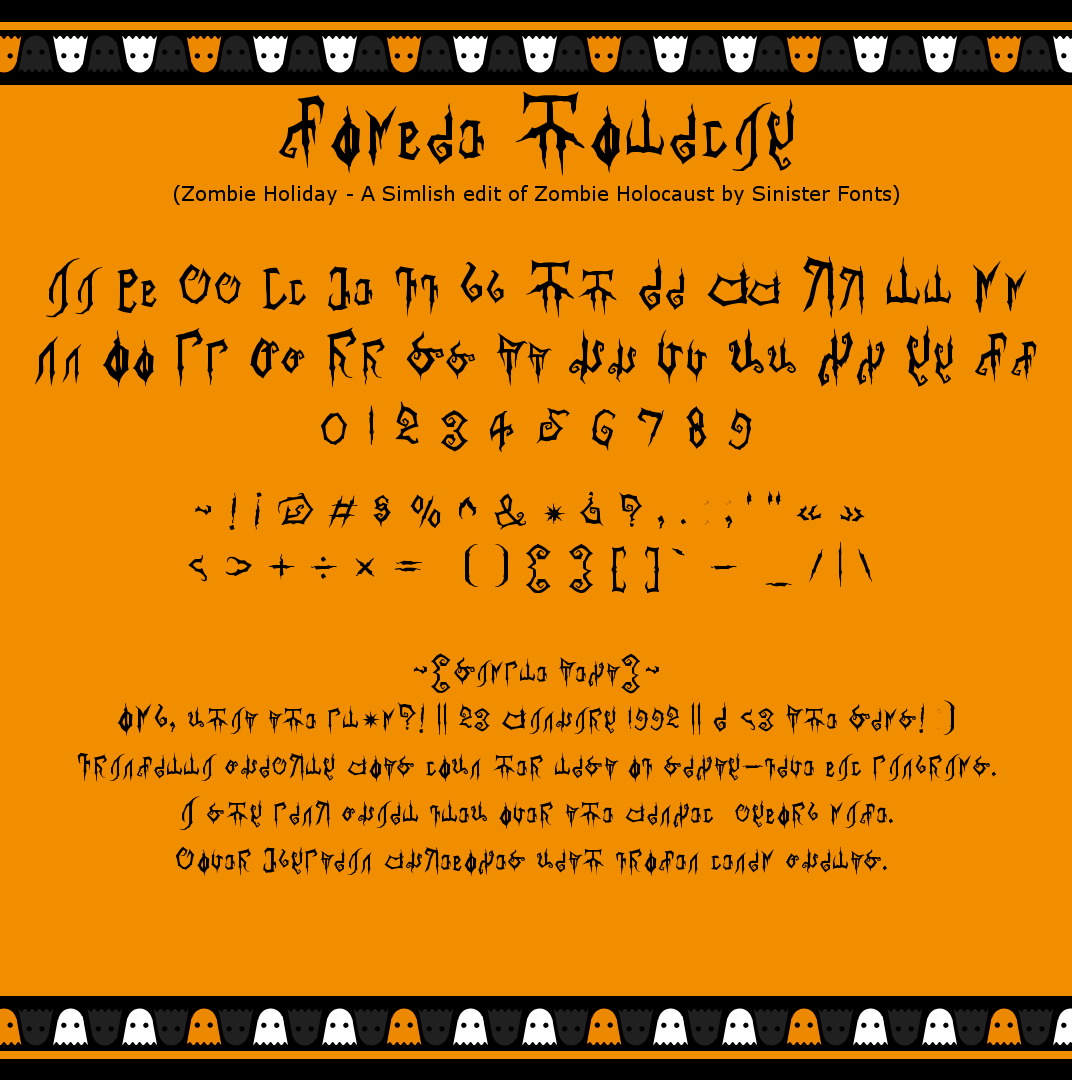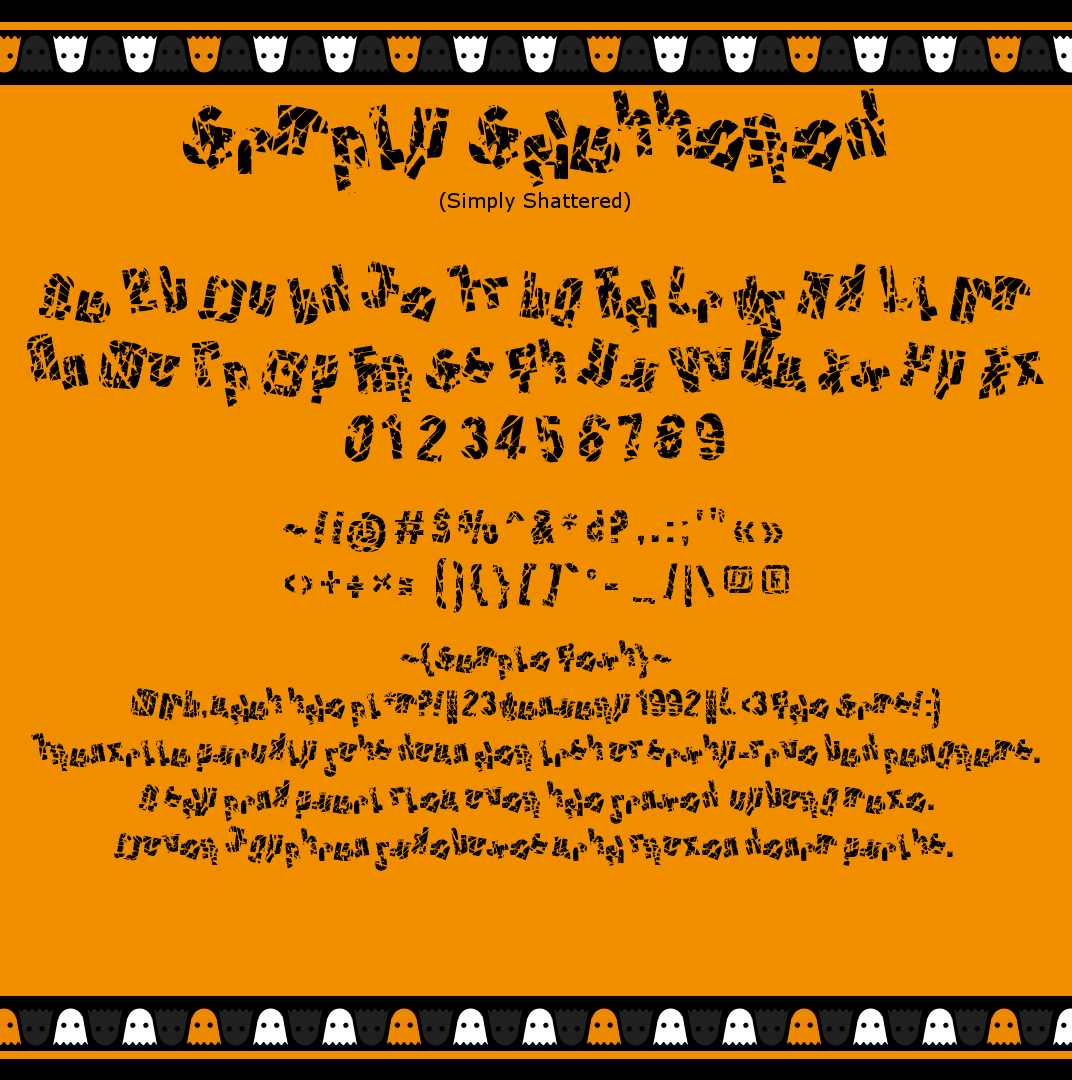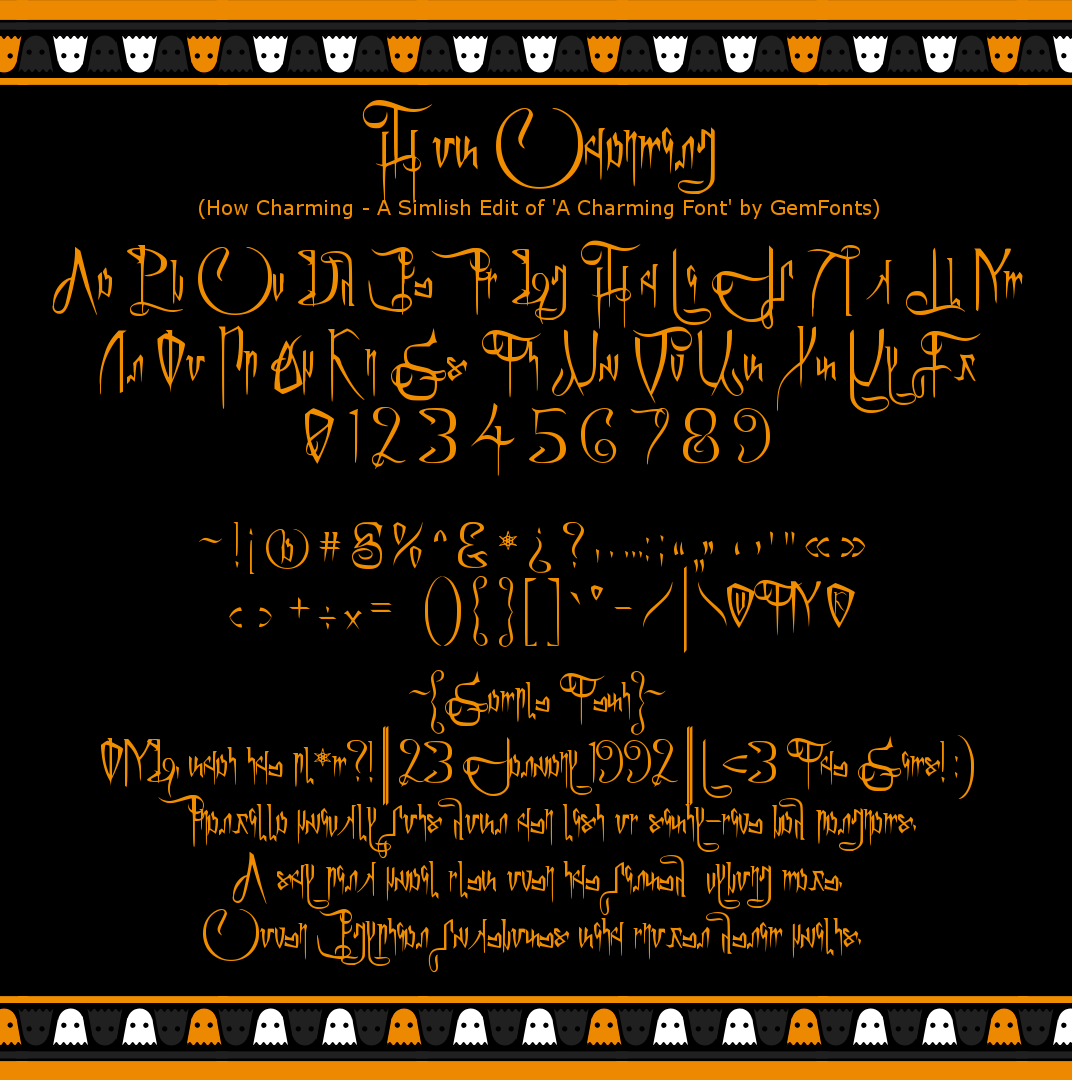
Zombie Holiday - A Simlish edit of the creepy, thorny, slithery Zombie Holocaust by Sinister Fonts
Bewitching Bezier - A fun, odd experiment of circles, swirls, and funky kerning.
Simply Shattered - A broken, glass-shattered version of another font of mine, Simply There
How Charming - A Simlish edit of fiendishly charming A Charming Font by GemFonts
Harold Plumbob and The Elixir of Life - Simlish versions of Harry P and Lumos by Phoenix Phonts and CarpeSaponem , respectively. Perfect for Sims with a passion for witchcraft and wizardry!
Scribblenotes - Simlish handwriting hastily scribbled out from the beyond! Comes in 4 flavors of Simlish: Original, FreePlay, S3, and Sixam Scramble.
Spider Cider (+Tidier) - A stringy, webby, creepy, crawly handwritten font. Spider Cider works best when its characters are mixed with those of its feather duster-beaten twin, Spider Cider Tidier.
Spoozy - A wide font oozing with spook! Comes in 2 flavors of Simlish: Original and S3.
Nose Syrup - A drippy font best described as Simlish Comic Sans with a runny nose. Comes in 2 flavors of Simlish: Original and S3
Rediscovered Runes - Two versions of Simlish in a style inspired by Younger Futhark runes. Flavors of Simlish: Original and Scramble
Haunting Point (+Shadow) - A Simlish edit of the pointedly menacing Haunting Attraction Font by Sinister Fonts
The ~{Sample Text}~ at the bottom of the preview pictures reads as follows:
OMG, what the pl*m?! || 23 January 1992 || I <3 The Sims!
Franzilla quickly jots down her list of sixty-five bad pangrams.
A shy pink quail flew over the jinxed cyborg maze.
Cover Egyptian jukeboxes with frozen denim quilts.